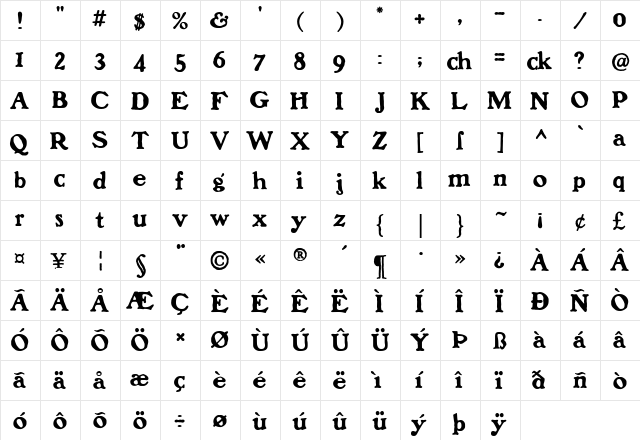
Benjamin Franklin Regular
Design Context for Benjamin Franklin Typeface
Benjamin Franklin takes a measured approach to typography — its balanced proportions and neutral character make it a reliable workhorse for both digital and print work.